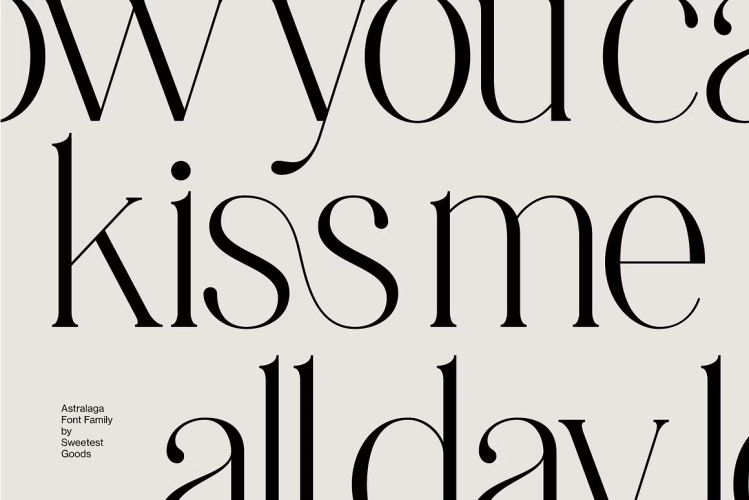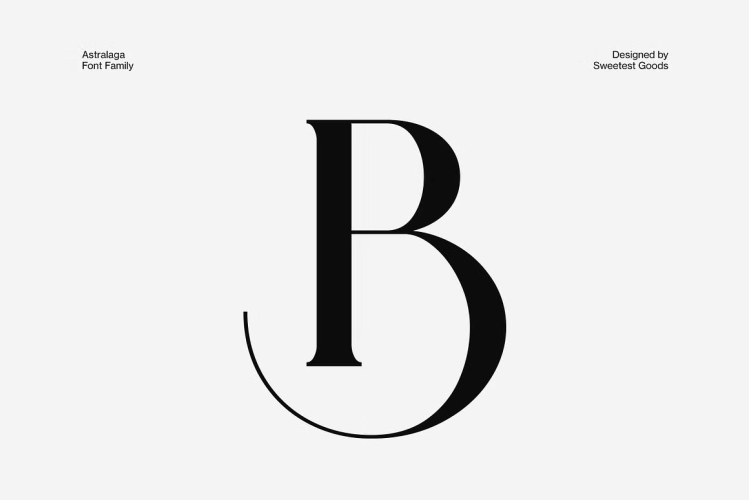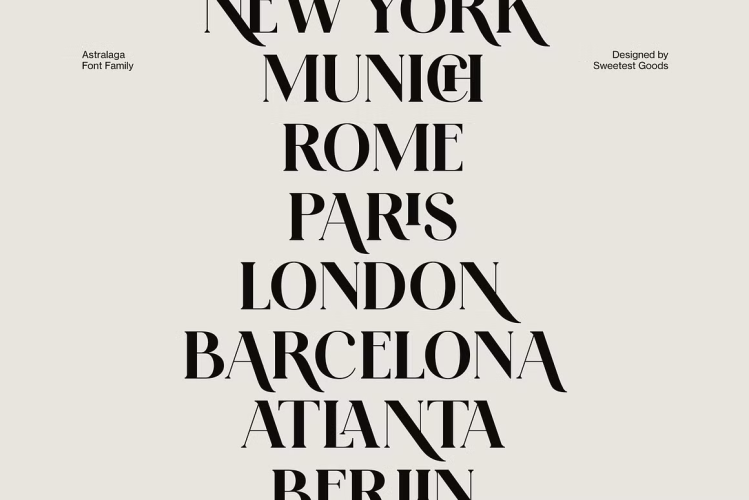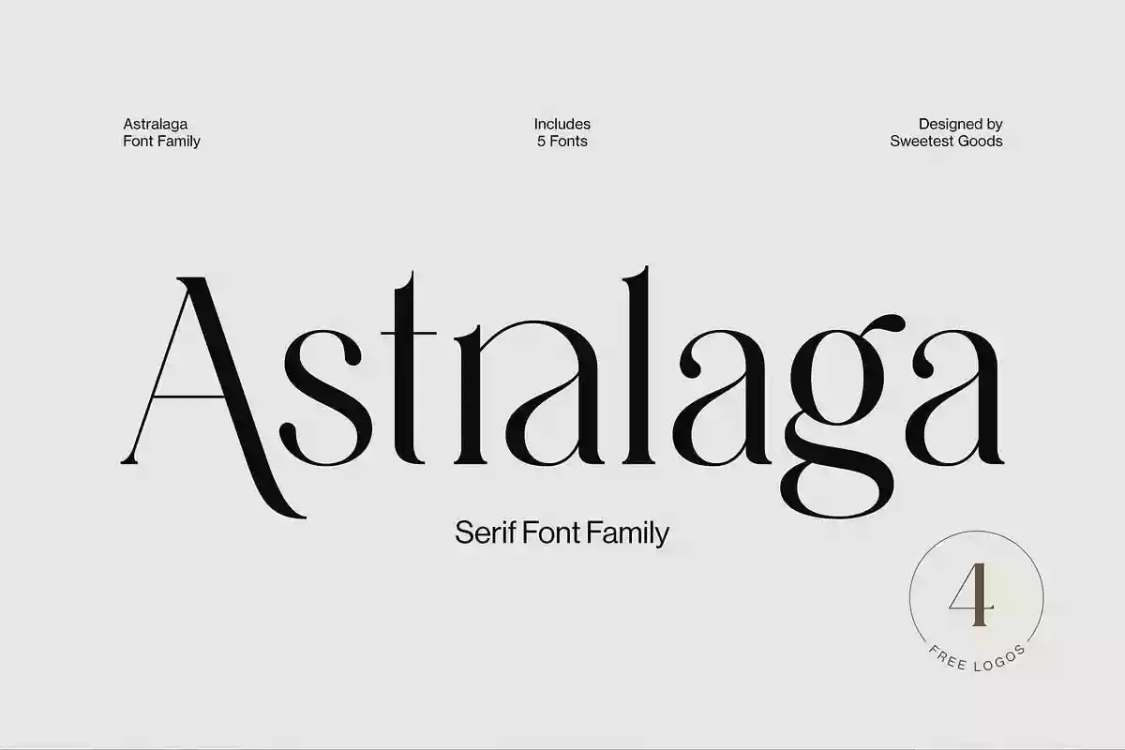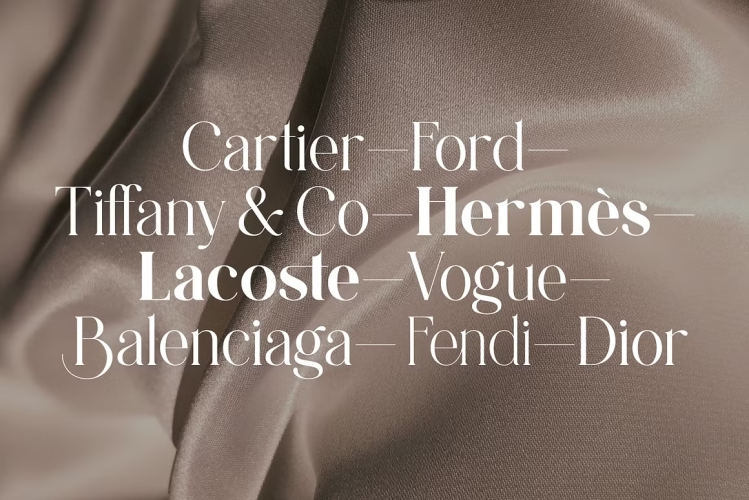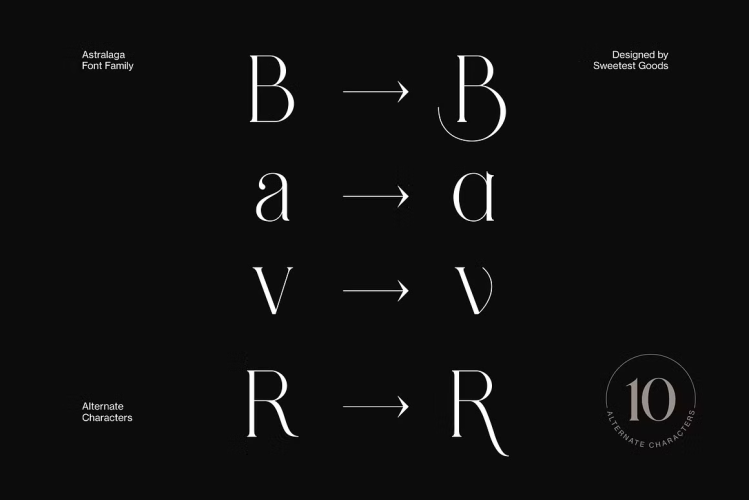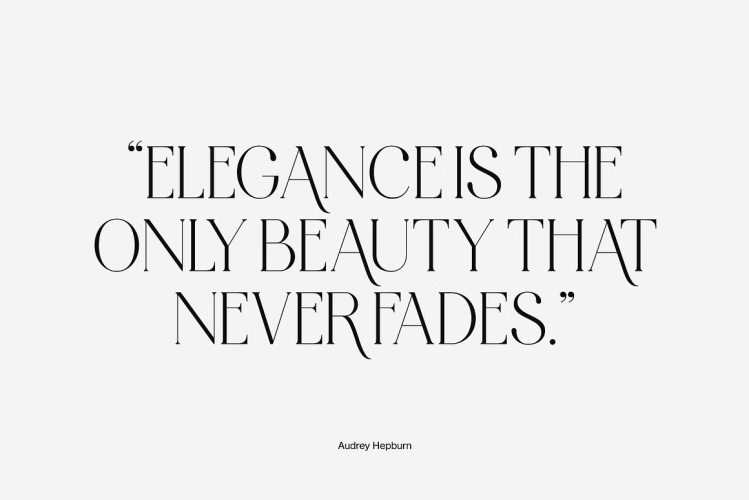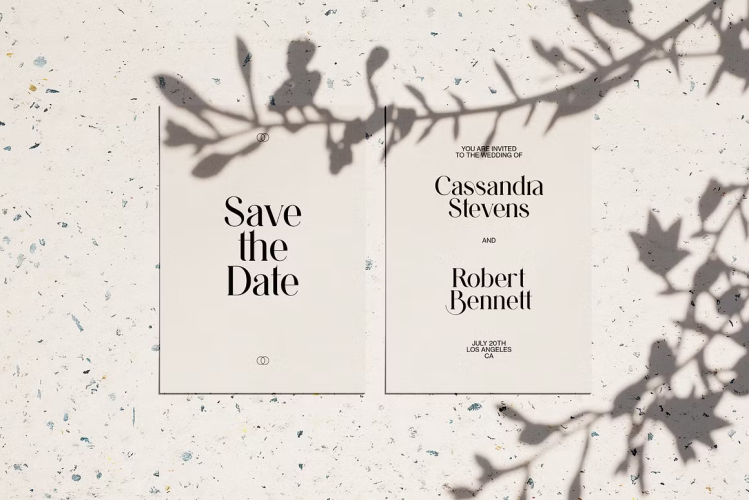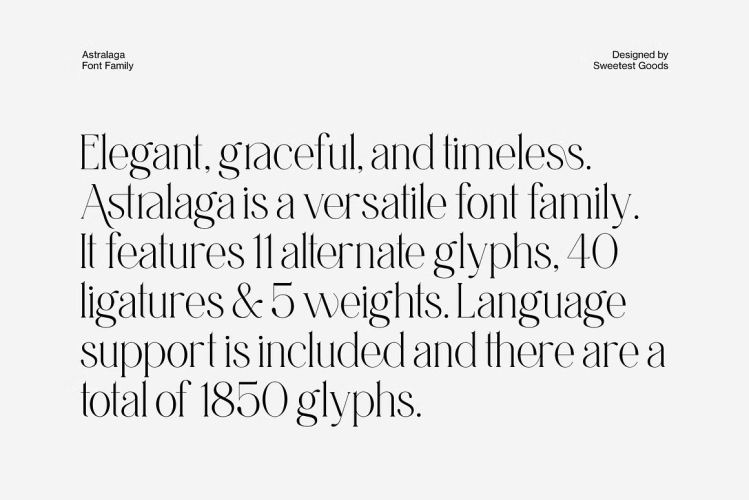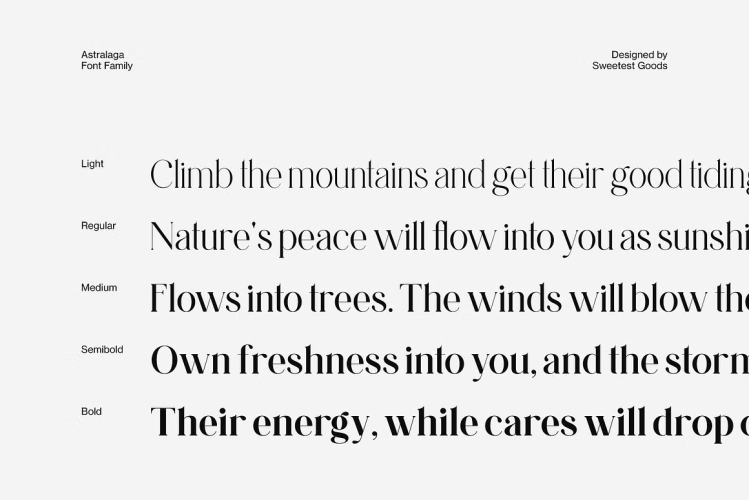
Astralaga Font
Astralaga is a versatile font family with timeless, classic appeal. It has over 50 alternates and ligatures, multilingual support, and four free logo designs.
Every letter has been hand-drawn and crafted with the utmost care. The various weights provide a range of choices that will help you find the best typographic character for your project. All 5 weights are well-suited for extensive display uses and high-impact headlines. The available stylistic alternates and ligatures offer several options that give your logo or business card a unique look. This high-contrast serif typeface features 1850 glyphs and offers comprehensive language support.
Where Astralaga Font works best
Astralaga Font gives long-form text a classic, trustworthy rhythm — ideal for magazine spreads, annual reports and book interiors.
Pair Astralaga Font with generous letter-spacing for wordmarks in fashion, hospitality, wine and jewellery branding.
Use Astralaga Font for slide titles in Keynote, PowerPoint or Google Slides to add authority without looking dated.
What is Astralaga Font good for?